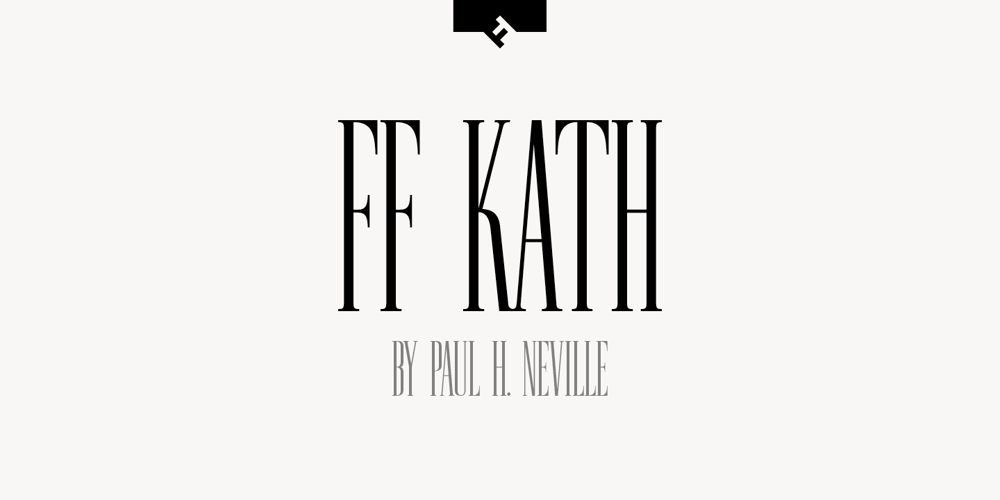
FF Kath
FF Kath font
FF Kath Font Family was designed by Paul H. Neville and published by FontFont. FF Kath contains 4 styles and family package options. American type designer Paul H. Neville created this display FontFont in 1992. The family contains 4 weights and is ideally suited for advertising and packaging, editorial and publishing as well as poster and billboards. FF Kath provides advanced typographical support with features such as ligatures. It comes with proportional lining figures.